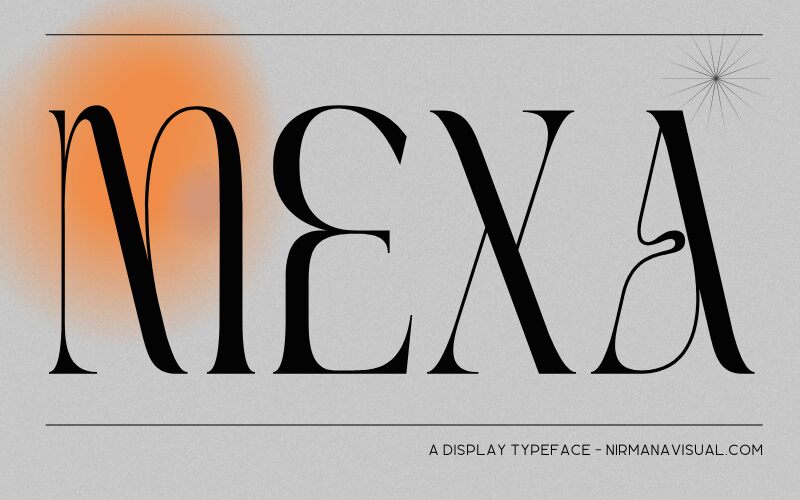
Mexa, a retro display font by Nirmana Visual, is the perfect typeface to add a touch of nostalgia and personality to your projects. Its semi-light weight and condensed width make it ideal for creating attention-grabbing headlines, logos, and packaging designs. This versatile font can be used in various creative projects, such as vintage-inspired posters, album covers, or even trendy social media graphics. Mexa's unique style will transport your audience back in time while giving your designs a modern twist. Let Mexa bring the charm of the past to your next project!
Mexa